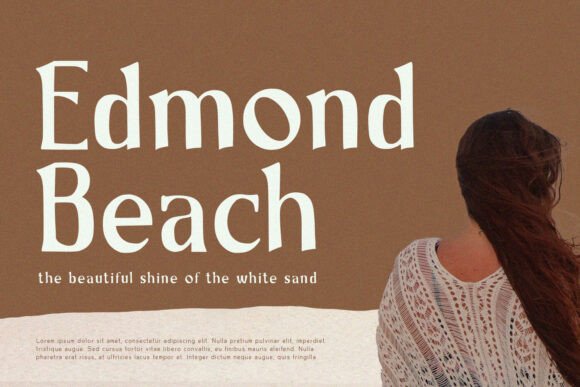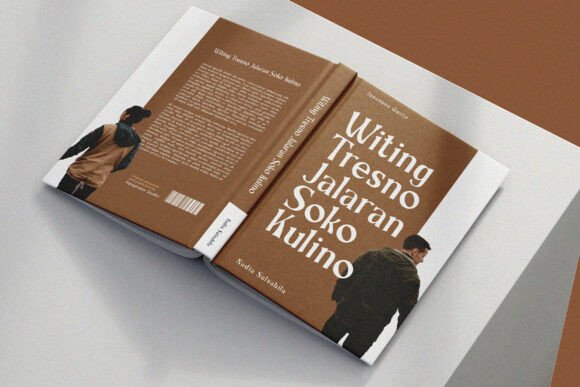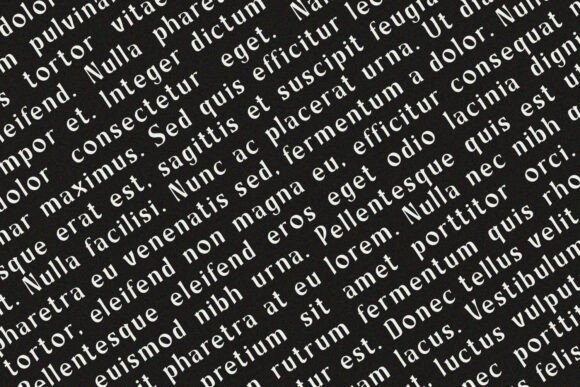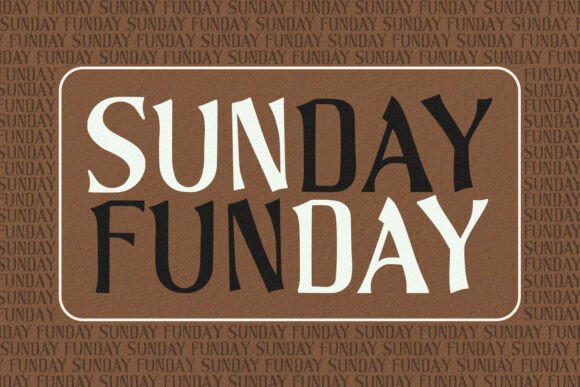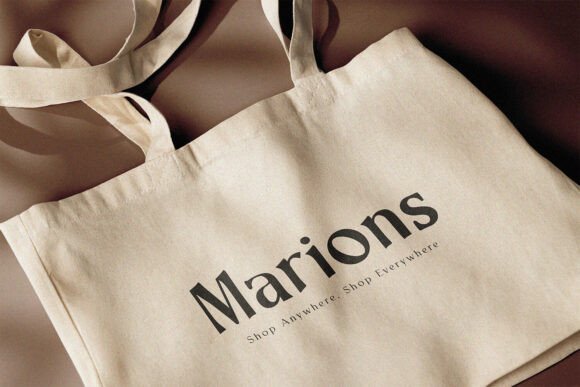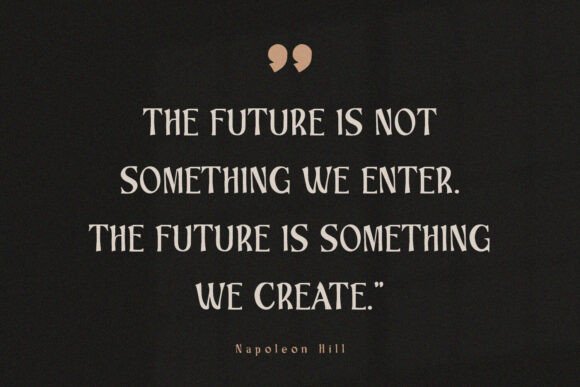
Introducing Boniface Font: Elevate Your Designs with Elegance and Modernity
In the world of typography, a font can make or break a design. For designers and crafters seeking to elevate their projects with a touch of sophistication, Boniface Font is an exceptional choice. This display serif font boasts an elegant and modern feel, making it perfect for a wide range of applications, from branding and logo design to packaging and advertising.
The Characteristics of Boniface Font
Boniface Font is a display serif font that exudes luxury and refinement. Its elegant and modern design makes it an ideal choice for designers looking to create a lasting impression. The font’s serif details add a touch of classic sophistication, while its clean lines and minimalist aesthetic ensure it remains contemporary and fresh.
Boniface Font’s versatility makes it suitable for a wide range of design projects, including:
- Branding: Create a lasting impression with a font that exudes elegance and sophistication.
- Logo Design: Design a logo that stands out with Boniface Font’s unique and modern feel.
- Lettering: Add a touch of luxury to your lettering projects with this beautiful font.
- Logotype: Create a memorable logotype that reflects your brand’s personality.
- Clothing: Use Boniface Font to add a touch of elegance to your clothing designs, from t-shirts to shopping bags.
- Posters: Create eye-catching posters that grab attention with this stunning font.
- Magazines: Elevate your magazine designs with a font that exudes sophistication and refinement.
- Packaging: Make your packaging designs stand out with Boniface Font’s modern and elegant feel.
- Photography: Use this font to add a touch of luxury to your photography projects, from album covers to promotional materials.
- Special Events: Create memorable event branding with Boniface Font’s elegant and modern design.
Why Choose Boniface Font?
With so many fonts available, why choose Boniface Font for your design projects? Here are just a few reasons:
- Unique Design: Boniface Font’s elegant and modern design sets it apart from other fonts.
- Versatility: This font is suitable for a wide range of design projects, from branding to packaging.
- Ease of Use: Boniface Font is easy to use and works seamlessly with most design software.
- High-Quality: This font is designed to deliver high-quality results, ensuring your designs look professional and polished.
Tips for Using Boniface Font
To get the most out of Boniface Font, here are a few tips:
- Experiment with Sizes: Boniface Font looks great in a variety of sizes, from large headings to smaller body text.
- Play with Colors: This font works well with a range of colors, from bold and bright to muted and pastel.
- Mix and Match: Combine Boniface Font with other fonts to create a unique and eye-catching design.
Boniface Font is an exceptional choice for designers and crafters seeking to elevate their projects with elegance and modernity. With its unique design, versatility, and ease of use, this display serif font is perfect for a wide range of applications. Whether you’re working on branding, logo design, packaging, or advertising, Boniface Font is sure to deliver high-quality results that leave a lasting impression.